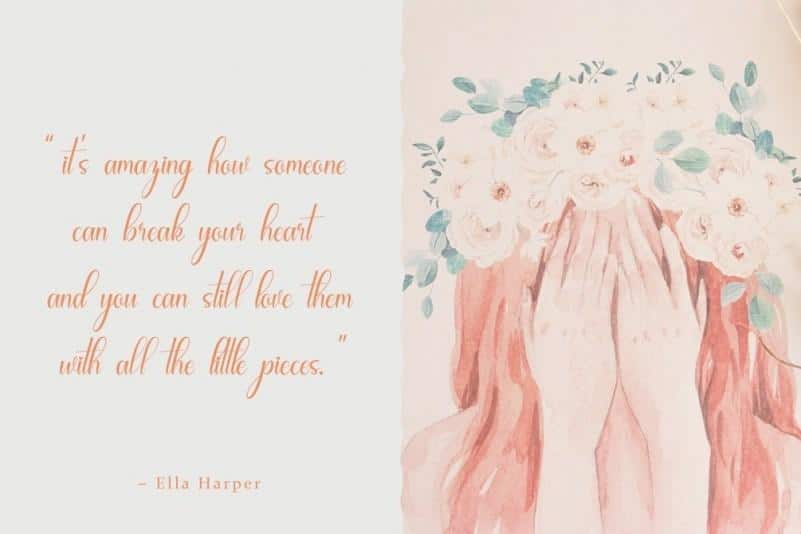
Glad to introduce you a My Sunshine Font – is a modern calligraphy typeface based on hand lettering that consists of irregular swirling and flowing, so it looks beautiful.
This Typeface suitable for wedding invitations, greeting cards, quotes, photo captions, posters, branding, design of water-based paints, correspondence, and a variety of other purposes.